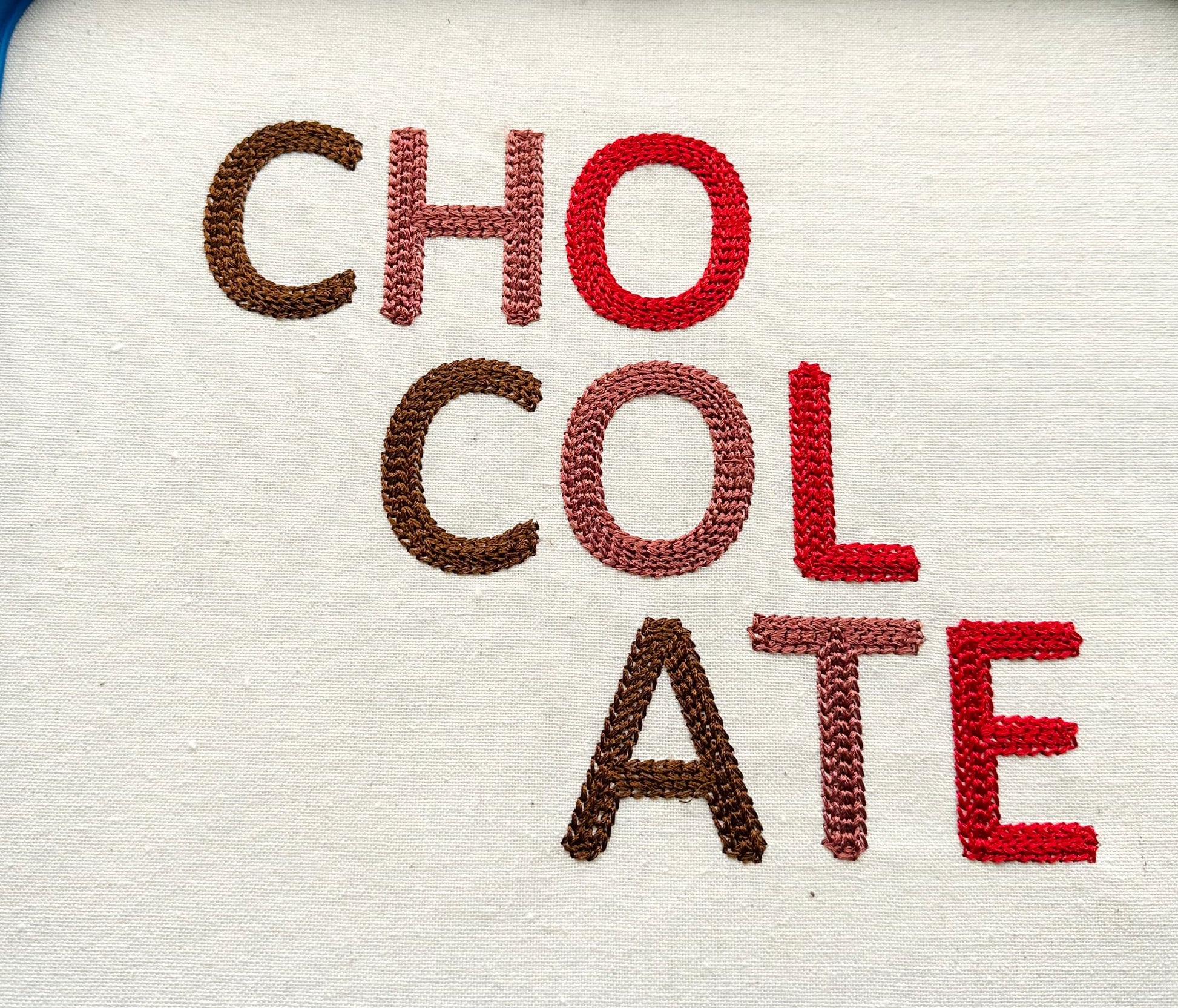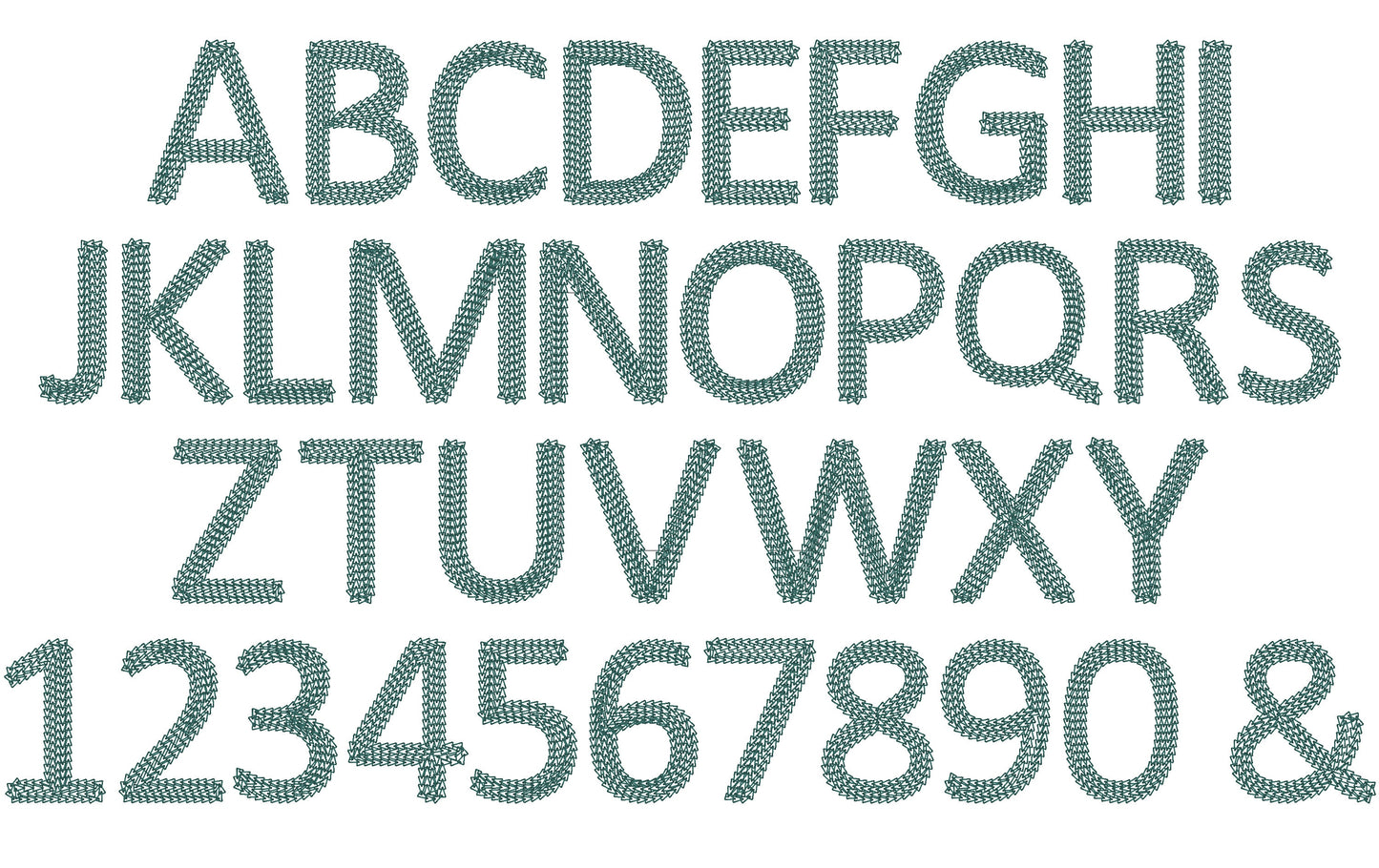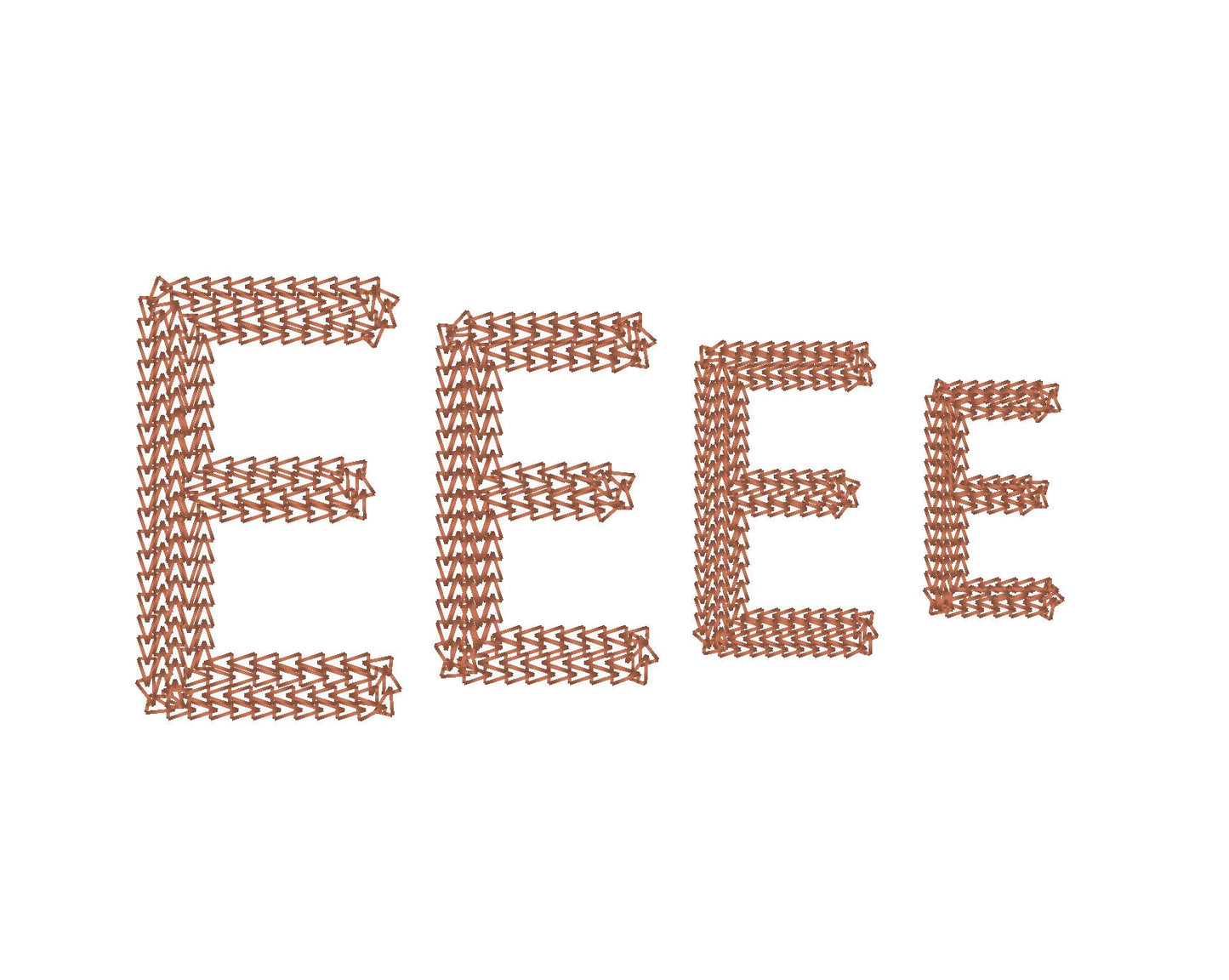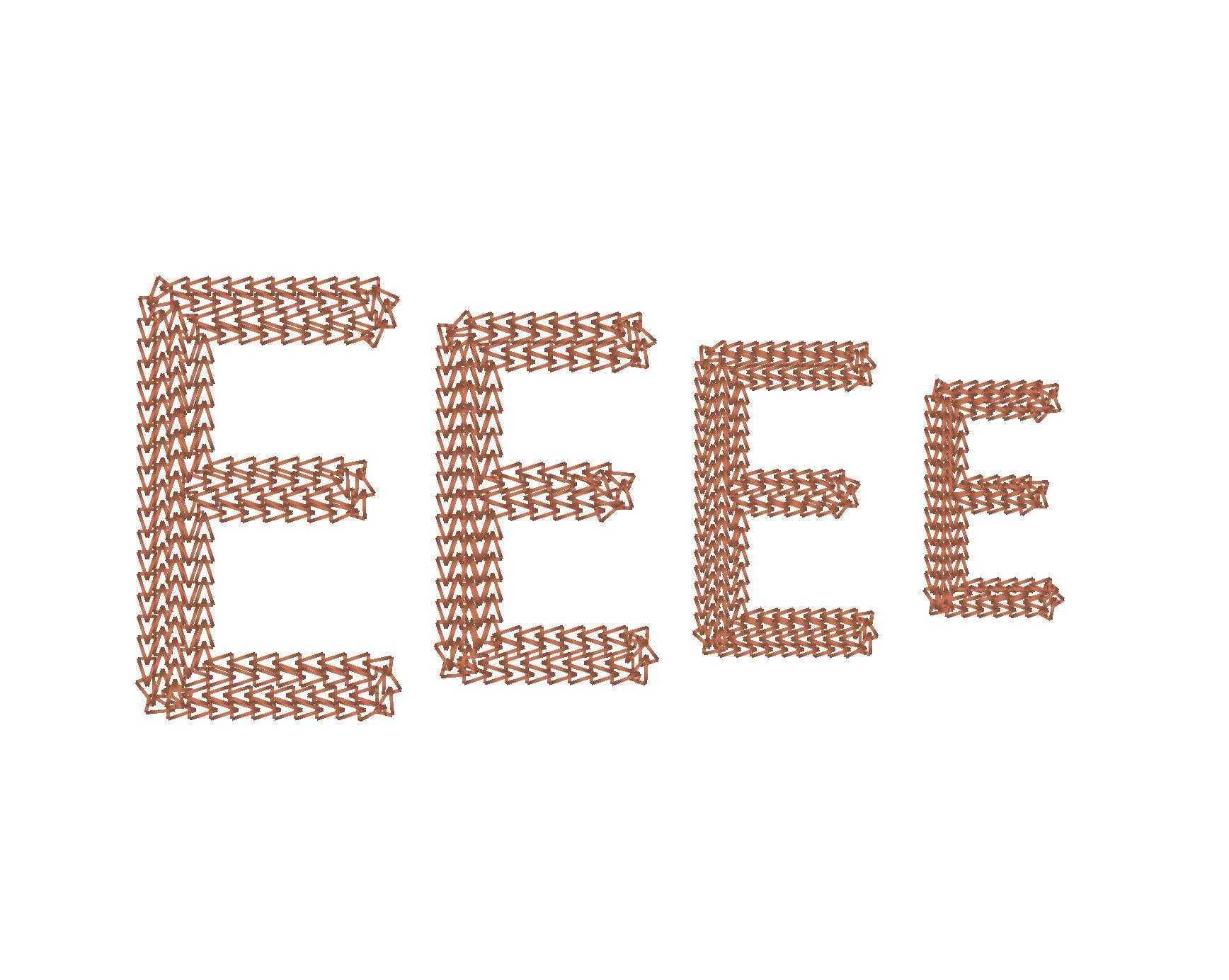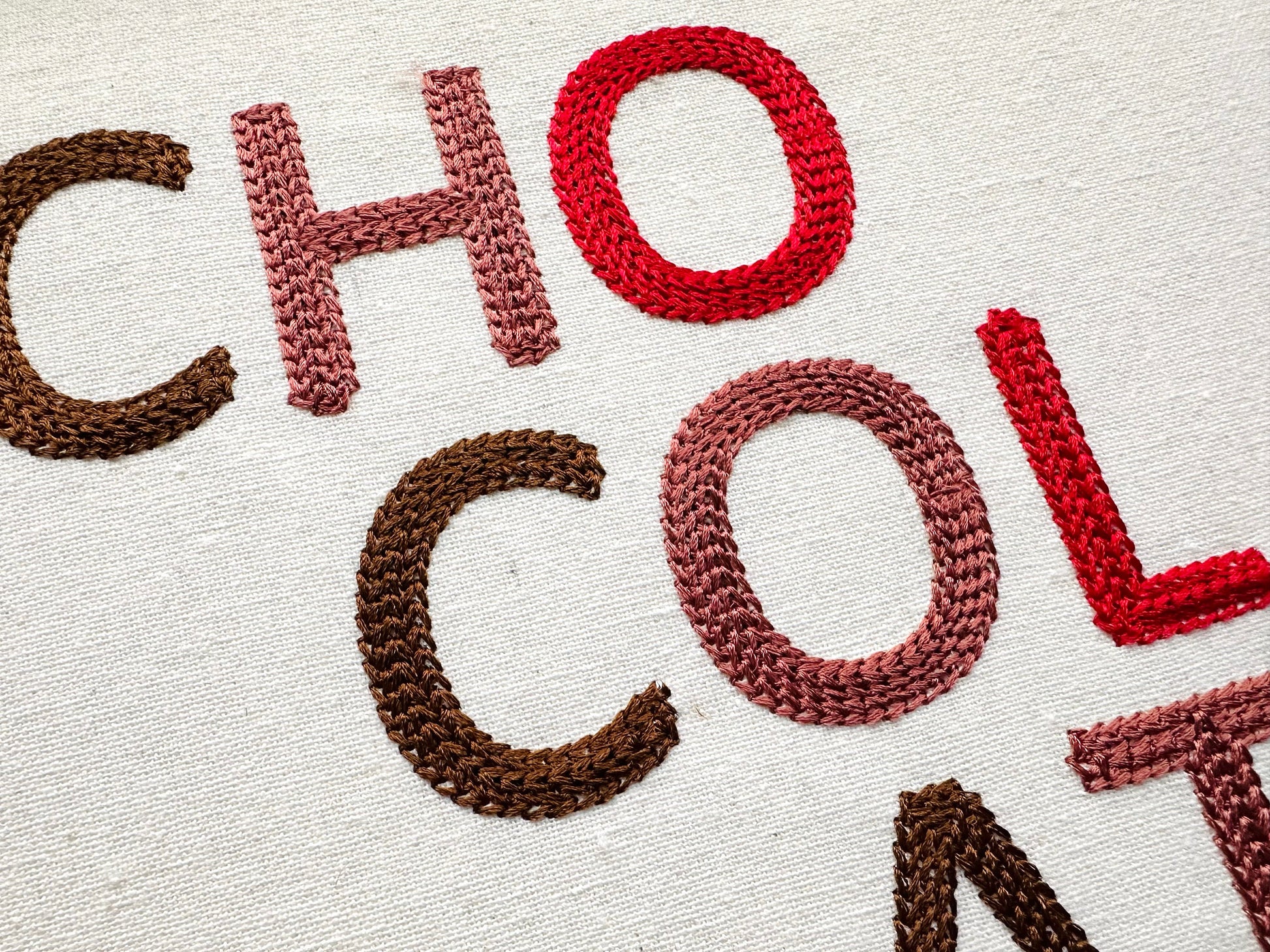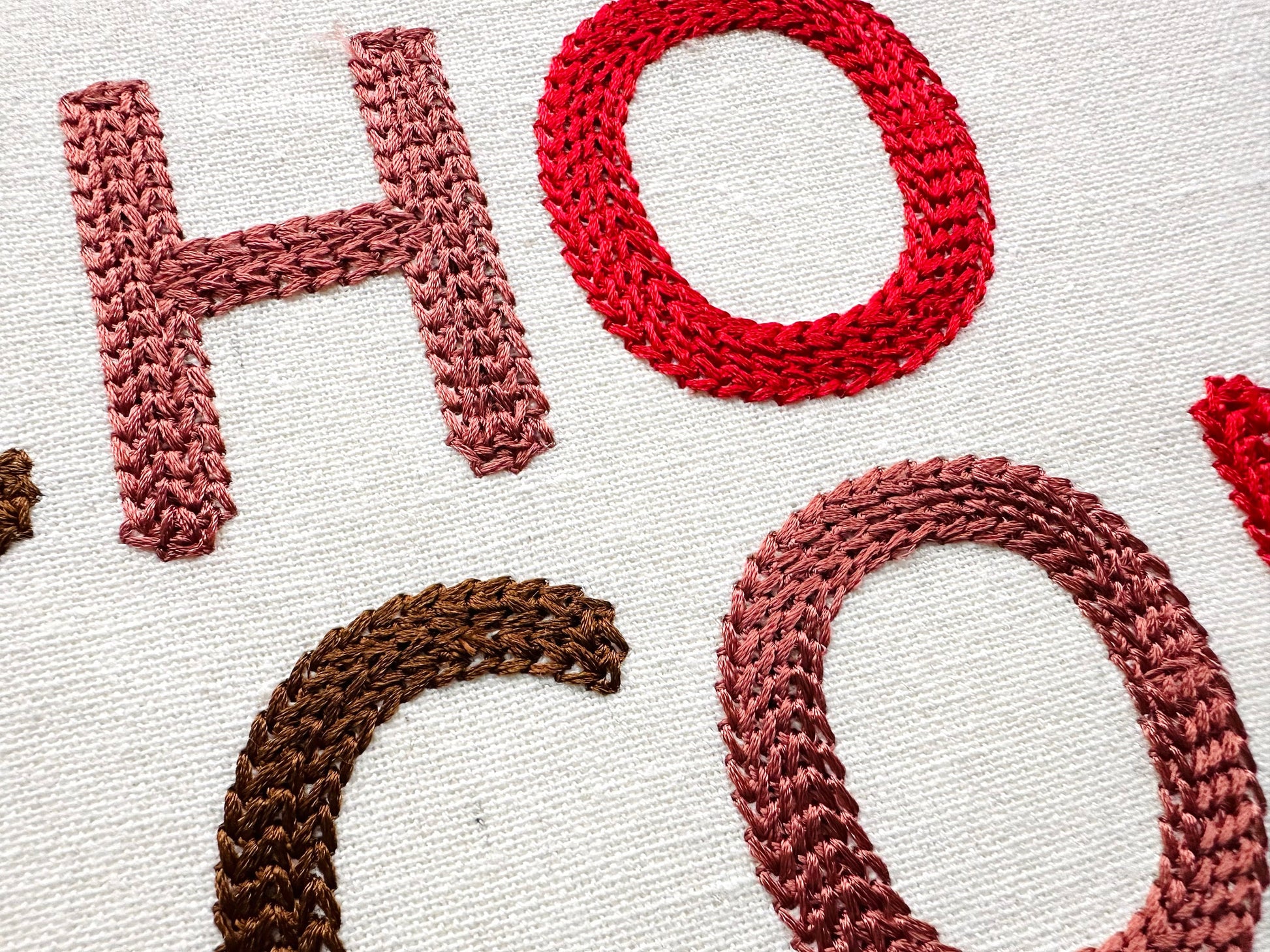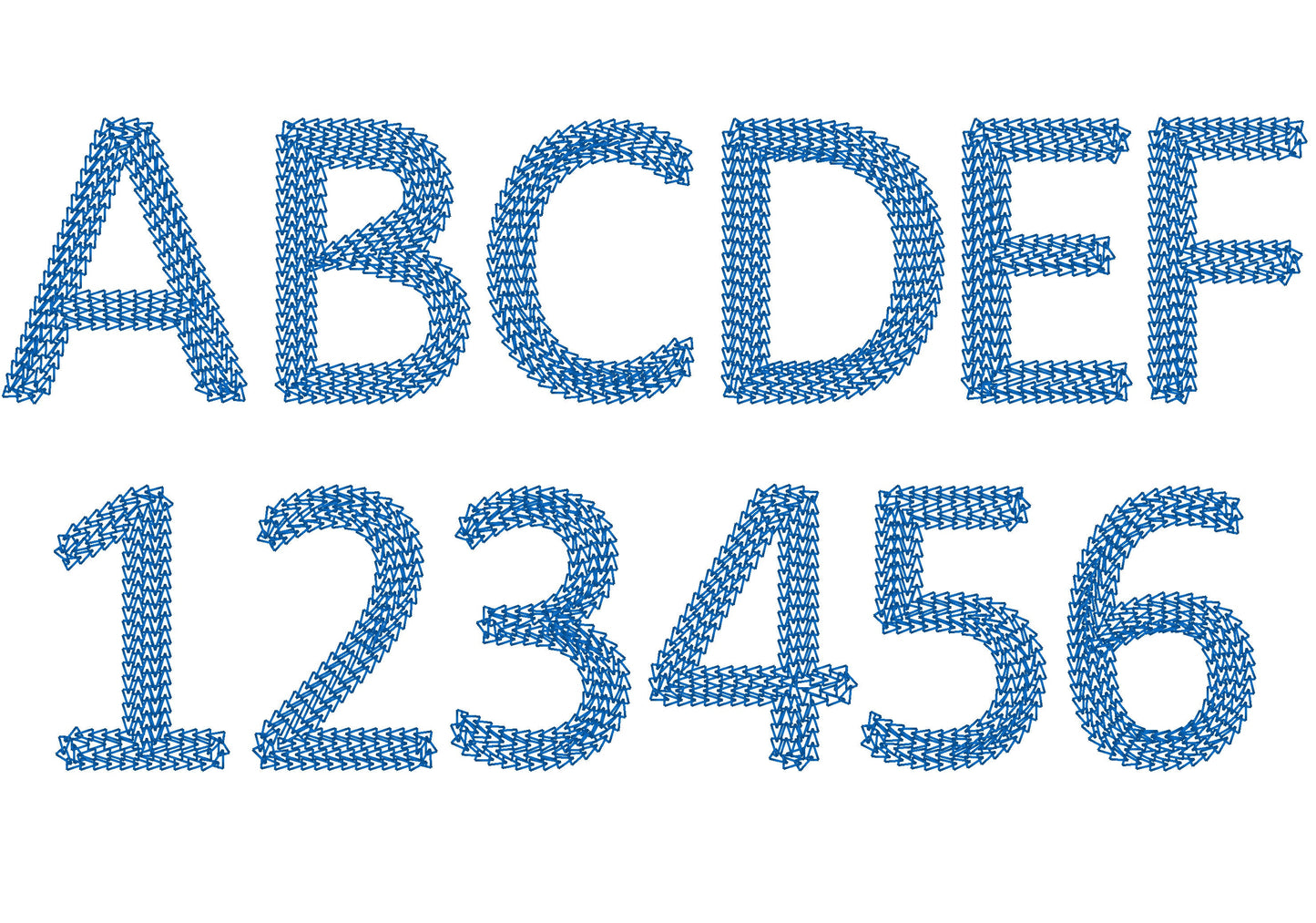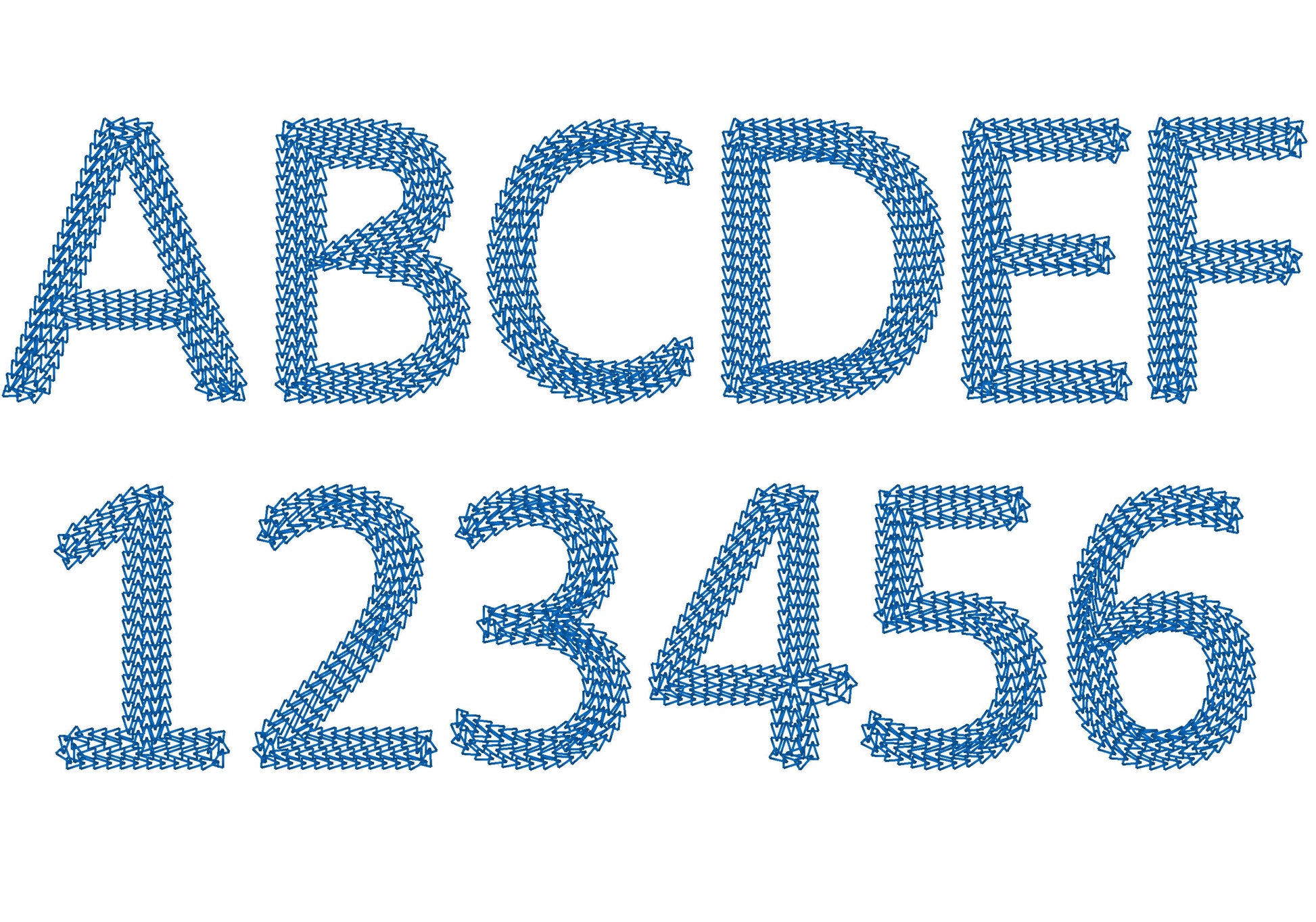
Or click to open the linkA mini chain block font with a hand-stitched look. Great for monograms, kids' names, shirts and small gifts.
Uppercase letters A to Z, numbers 0 to 9 and an ampersand. Four sizes: 1.4, 1.7, 2 and 2.5 inches.